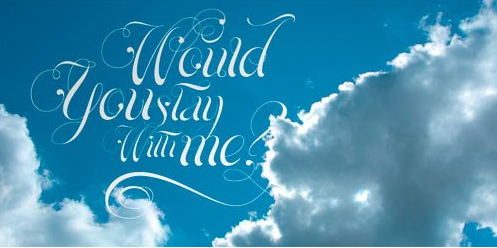
Parfait Script Font Family
Parfait Script Pro takes its inspiration from Spencerian script and pointed brush lettering, two styles of writing (or of drawing letters, a calligrapher would say), that the designer successfully combined. Parfait Script Pro is an Open-Type font designed by Maximiliano R. Sproviero between 2009 and 2010. It has over 850 glyphs.